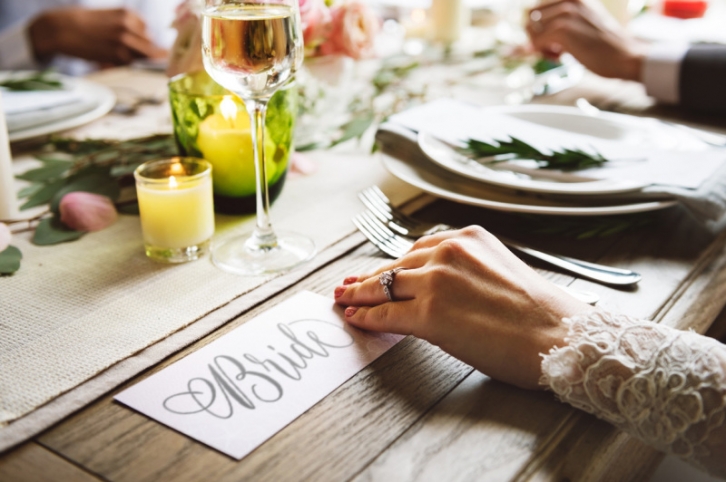
Tatyana - Calligraphy Script FONT Download
Tatyana - Calligraphy Script Font Download
Tatyana is a calligraphic script plus decorative glyphs alternates. Carefully crafted. Containing 369 glyphs. Flowing smoothly, perfect for designing book covers, film covers, apparel, cards, logos, posters, etc. Opentype features gives you more alternatives in designing.
• Basic Latin A-Z and a-z
• Decorative Glyphs A-Z and a-z
• Symbols
• Swash
• Stylistic Set
• Ligature
• Kerning
Please check the last preview to see the entire glyphs of Tatyana Script.